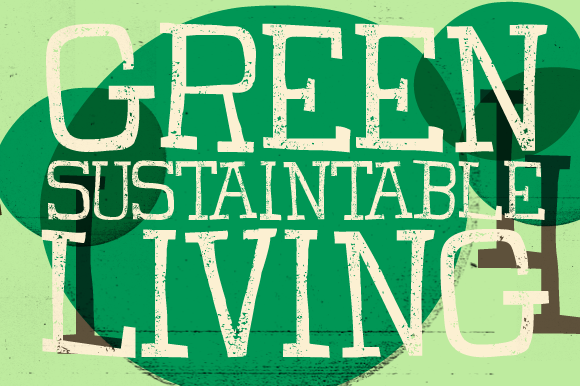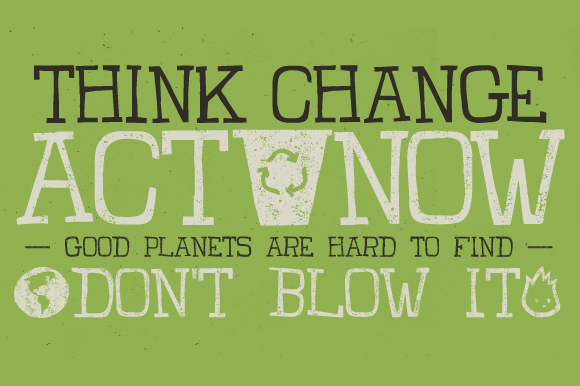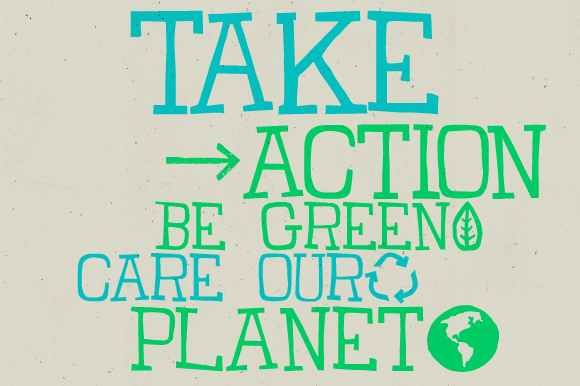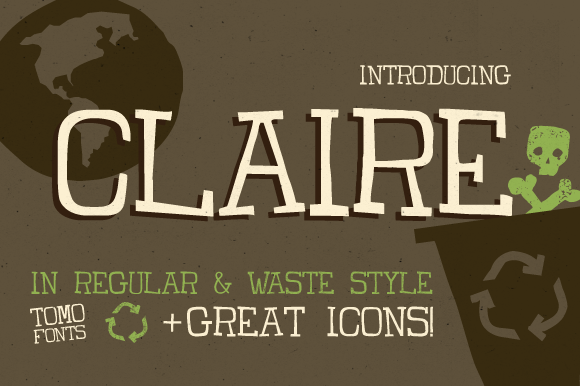
Introducing Claire Font: The Quirky and Nostalgic Handmade Display Font
Are you a designer or crafter looking for a unique and eye-catching font to elevate your creative projects? Look no further than Claire Font, a handmade display font that’s both quirky and nostalgic. With its distinctive charm and character, Claire Font is the perfect choice for turning any creative idea into a masterpiece.
What is Claire Font?
Claire Font is a carefully crafted, handmade display font that’s designed to add a touch of personality to your designs. Its quirky and nostalgic feel makes it perfect for a wide range of creative projects, from branding and advertising to packaging and editorial design.
Key Features of Claire Font
- Handmade with love: Each letterform in Claire Font has been carefully hand-drawn with precision and attention to detail, giving it a unique and authentic feel.
- Quirky and nostalgic: Claire Font’s distinctive style is both playful and retro, making it perfect for designers and crafters who want to add a touch of whimsy to their work.
- Highly legible: Despite its quirky feel, Claire Font is highly legible, making it suitable for use in a wide range of applications, from headlines to body copy.
- Extensive character set: Claire Font includes an extensive character set, with support for multiple languages and a range of punctuation and special characters.
Why Choose Claire Font?
So why choose Claire Font for your next creative project? Here are just a few reasons:
- Add a touch of personality: With its unique and quirky feel, Claire Font is the perfect way to add a touch of personality to your designs and stand out from the crowd.
- Evoking nostalgia: Claire Font’s nostalgic feel is sure to evoke memories of childhood and a bygone era, making it perfect for projects that require a retro or vintage vibe.
- Versatile: Whether you’re designing a logo, creating a poster, or crafting a social media graphic, Claire Font is versatile enough to be used in a wide range of applications.
How to Use Claire Font
- Pair with a sans-serif font: For a bold and eye-catching look, try pairing Claire Font with a clean sans-serif font.
- Use for headlines: Claire Font’s quirky feel makes it perfect for use in headlines and titles.
- Experiment with colors: Claire Font looks great in a range of colors, from bold and bright to pastel and muted.
In conclusion, Claire Font is a unique and eye-catching handmade display font that’s perfect for designers and crafters looking to add a touch of personality to their creative projects. With its quirky and nostalgic feel, extensive character set, and high legibility, Claire Font is the perfect choice for turning any creative idea into a masterpiece.